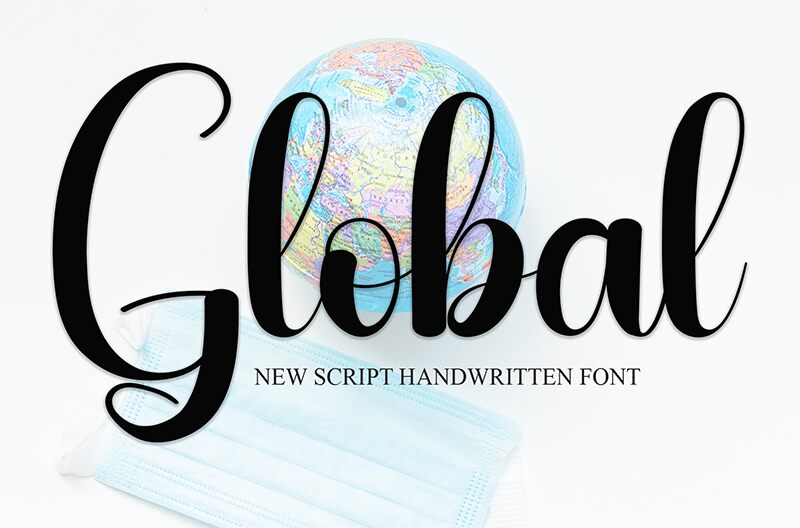
Global
Global font is a free handwritten font by Andi Moz with a flowing and elegant design. Its decorative appearance and stylish script make this choice the perfect addition to projects that require an expressive touch. The sophisticated lines of each character both in lowercase and capital letters allow for special display texts that hold the attention of any receiver.
For a more eye-catching project, let Global take part in your advertisements, modern websites, apps, e-books, magazines, invitations cards, decorating posters or flyers, business cards designs for personal brands or agencies.